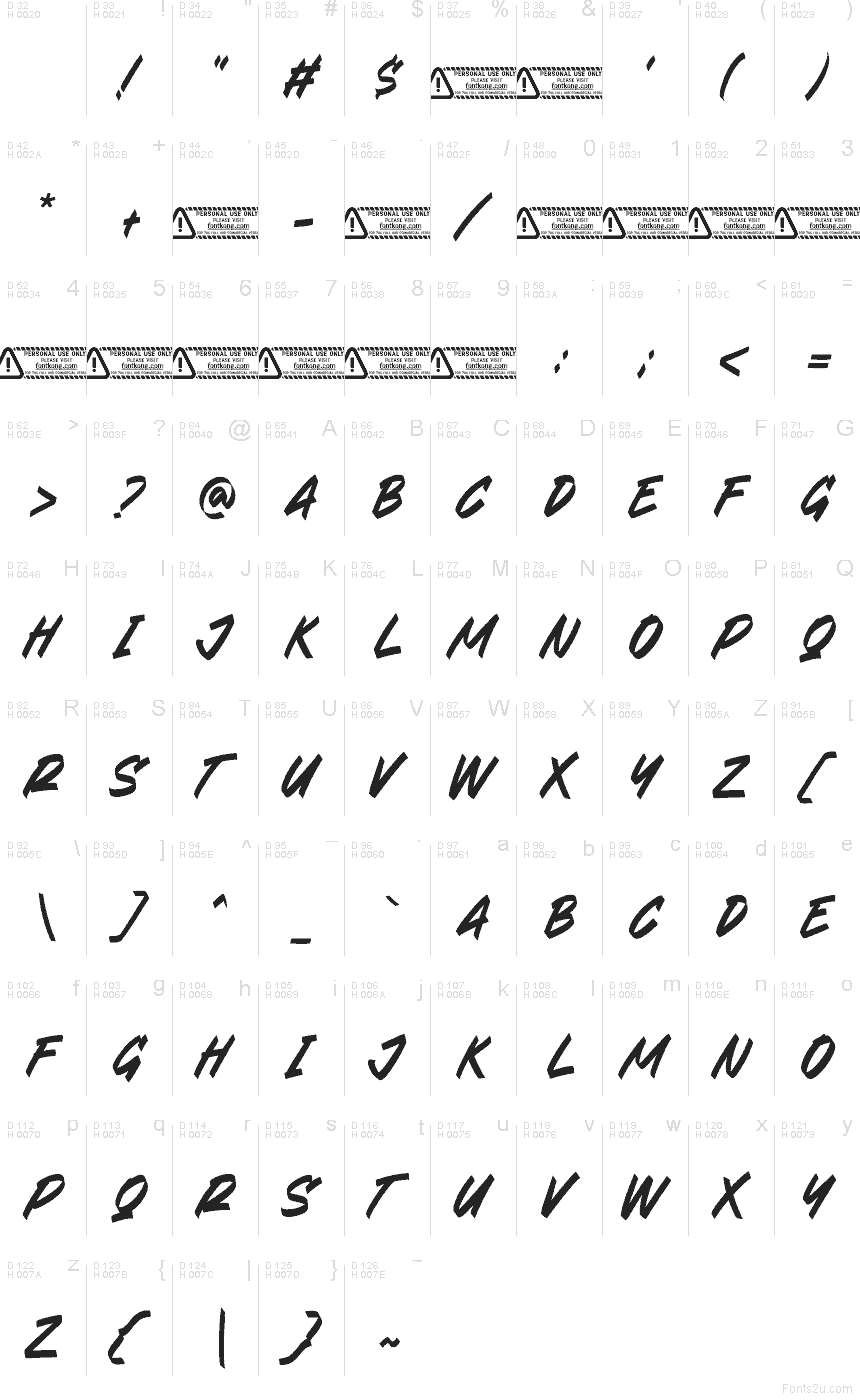
Koowachi font by Kong Font is a free brush font that hits like a bold stroke of spray paint. Thick, fast-moving letters lean forward with sharp edges and rough, inky texture, giving every word a sense of speed and attitude. It feels hand-painted but still controlled, so your text looks wild without slipping into chaos.
Using Koowachi, you get a go-to choice for sports posters, gaming thumbnails, YouTube covers, streetwear branding, music event flyers, and bold social media graphics. This free font thrives in big sizes where the brush details can breathe; pair it with a clean, narrow sans-serif for body text to keep the energy focused on your main headline.